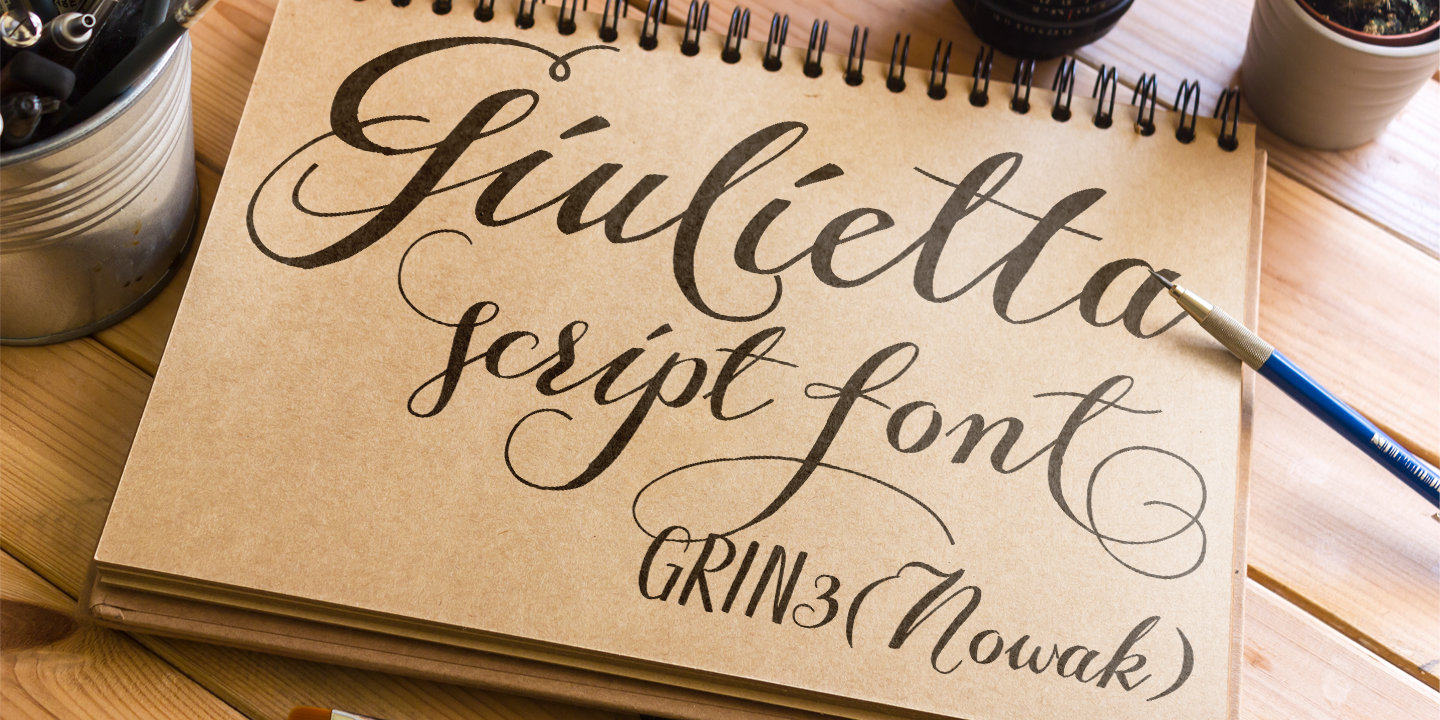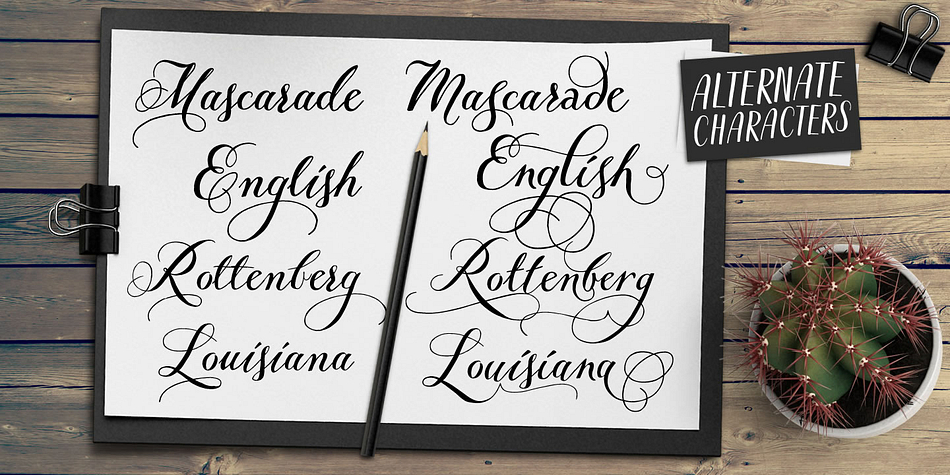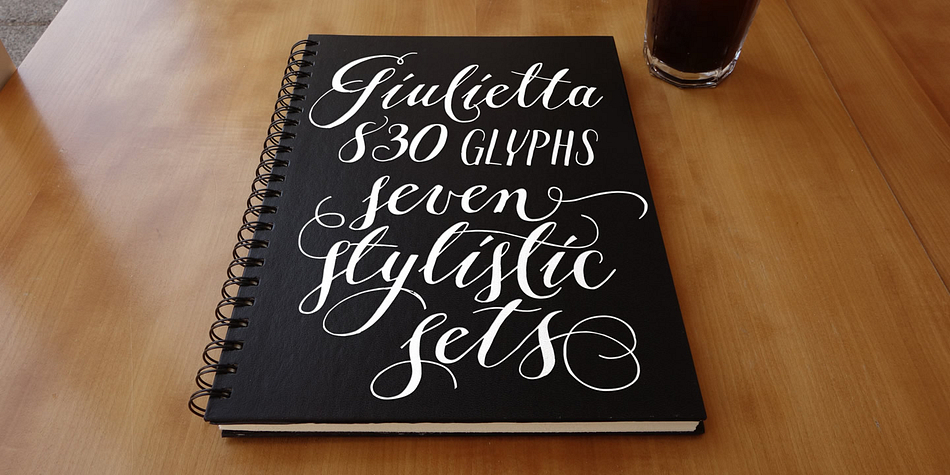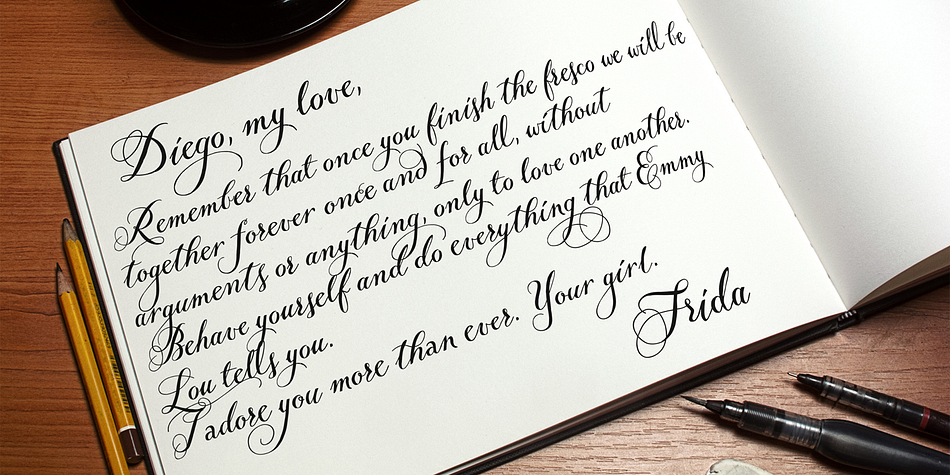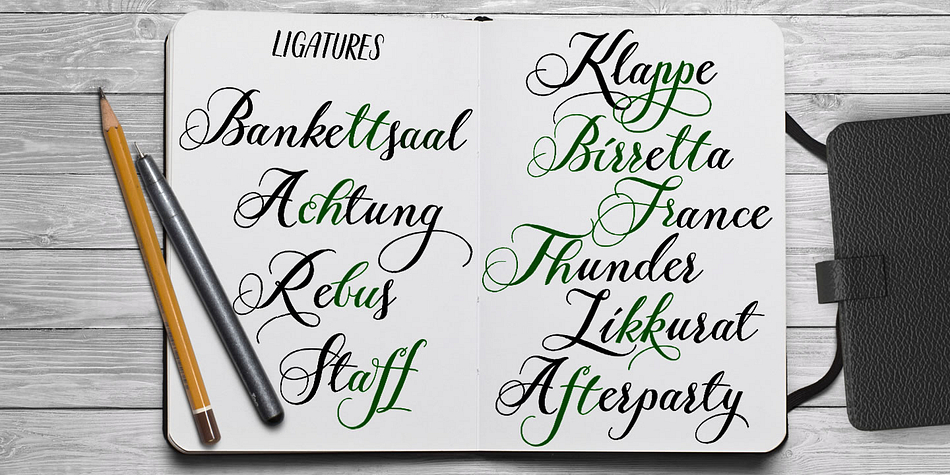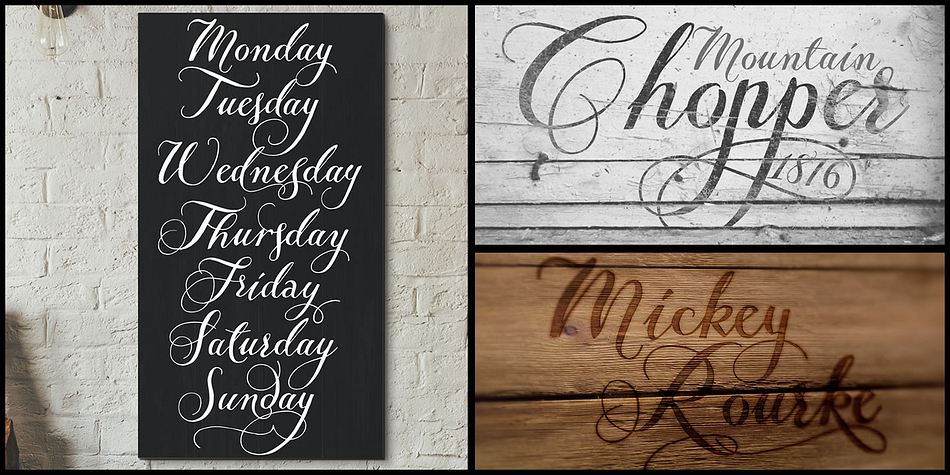
Designed by Bartek Nowak, Giulietta is a script font family. This typeface has four styles and was published by GRIN3 (Nowak).
Giulietta is a handwritten, fully connected script with ligatures and contextual alternates to help with flow and readability. It can be used for invitations, greeting cards, posters, advertising, weddings, books, menus etc.
Giulietta Pro is the most complete style, it contains over 830 glyphs, 7 stylistic sets, contextual alternates and ligatures. Every lowercase letter has seven variations (uppercase letter has three). To get the alternate glyphs choose various stylistic sets or just add “*1”, “*2”, “*3”, “*4”, “*5”,”*6” or “*7” before the letter in any OpenType savvy application or manually select the characters from Glyph Palette.
Giulietta A, Giulietta B and Giulietta C have less glyphs than Pro. They only contain some selected alternates and ligatures.
Language support includes Western, Central and Eastern European character sets, as well as Baltic and Turkish languages.